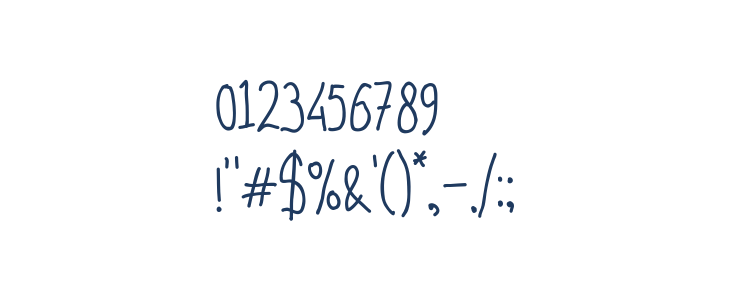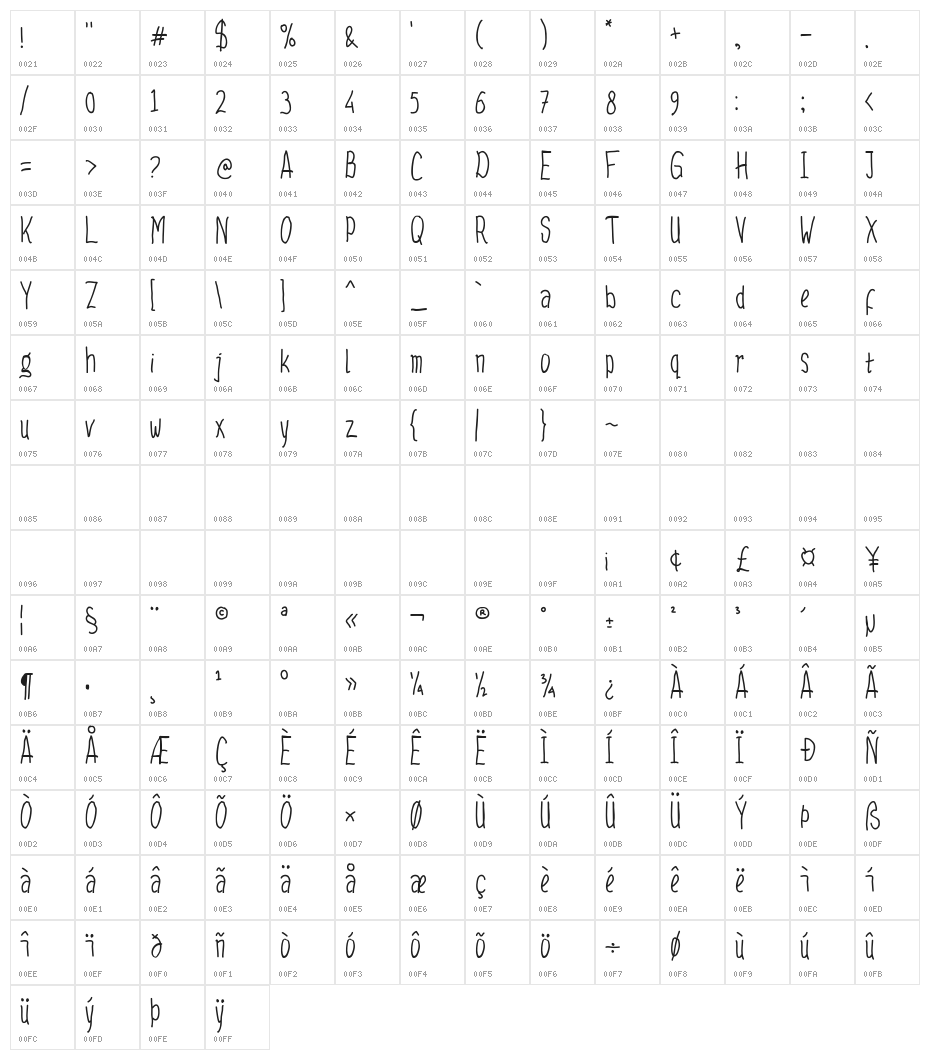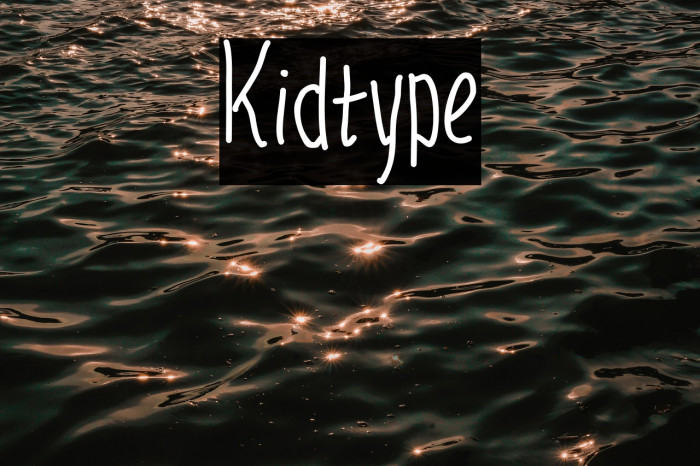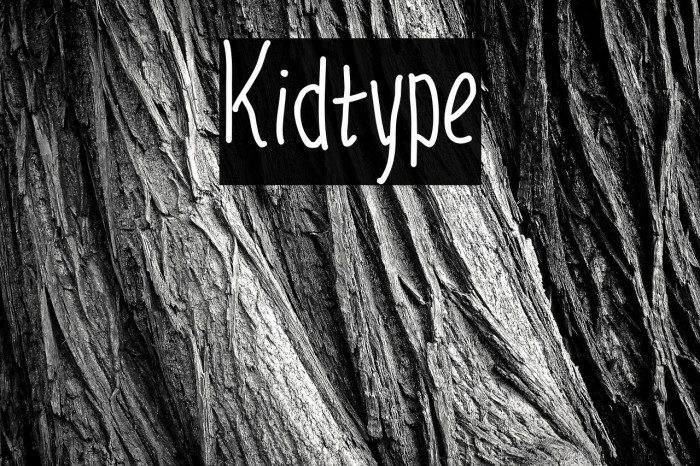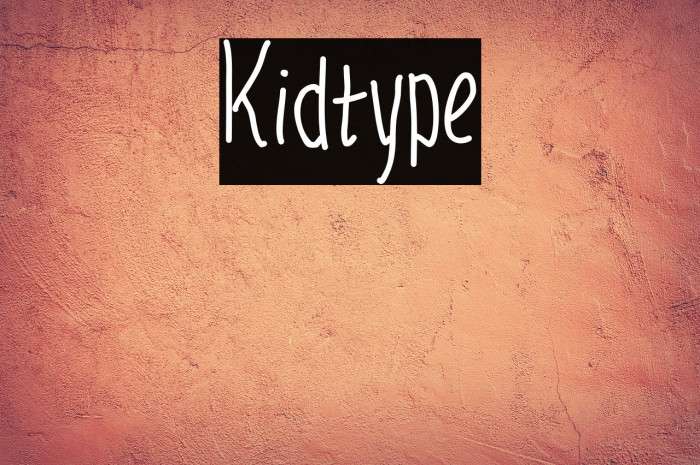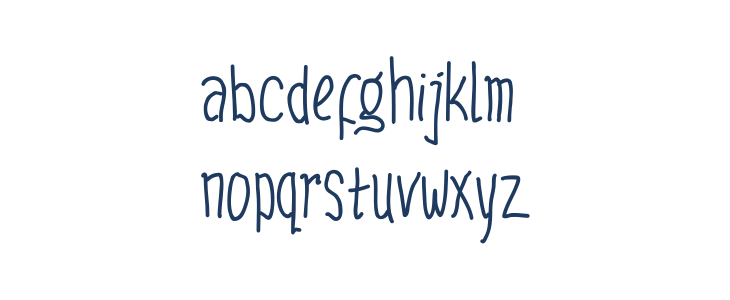
Kidtype Font
Kidtype Description
This playful and whimsical font features a hand-drawn style that mimics the carefree and spontaneous nature of children's handwriting. The letters are uneven and slightly irregular, adding a sense of authenticity and charm. The strokes are consistent in width, providing a uniform appearance despite the playful design. The font includes both uppercase and lowercase letters, numerals, and a variety of special characters, making it versatile for various applications. Its informal and friendly look makes it ideal for projects aimed at a younger audience or those seeking a casual and approachable aesthetic.
| Overall Style | Playful |
| Use Case | Headlines, Logos, Informal Text |
| Proposed Projects | Ideal for children's books, educational materials, playful branding, and casual invitations. |